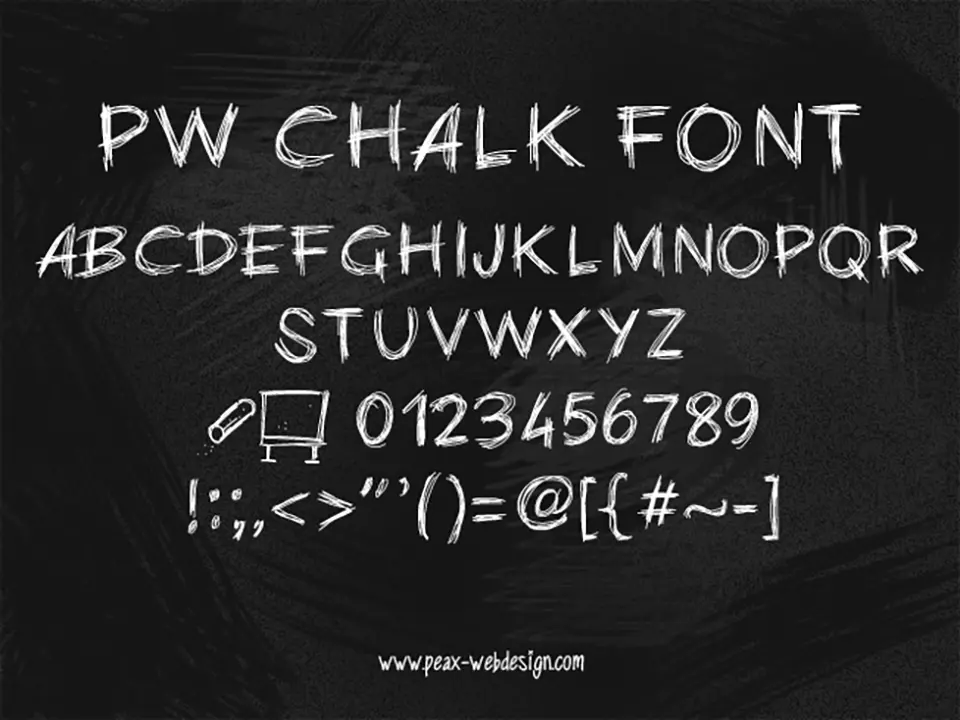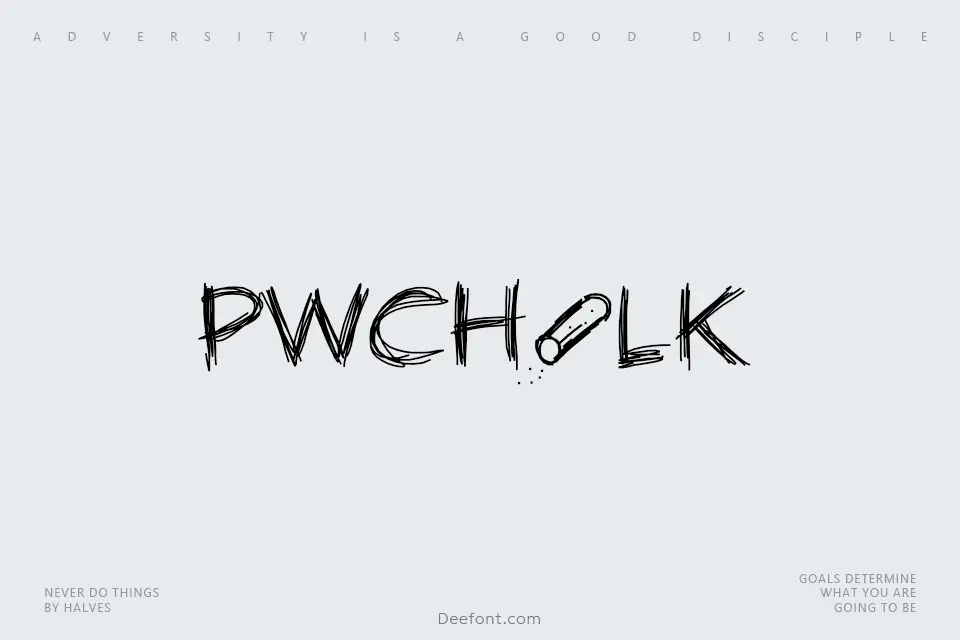
PW Chalk Font
PW Chalk Font embodies the raw, textured charm of hand-drawn chalk lettering, perfect for projects requiring an authentic classroom or café aesthetic. This free personal-use typeface features irregular strokes, subtle grit, and a sloppy yet playful handwritten style that mimics natural chalkboard writing. Its uppercase-only design includes numerals and basic punctuation, optimized for bold headlines, signage, or vintage-inspired branding. The font’s uneven baseline and scratchy details evoke nostalgia, making it ideal for children’s book covers, casual invitations, or rustic menu boards. While unrestricted for personal creativity, commercial applications require licensing. PW Chalk balances artistic imperfection with readability, offering designers a versatile tool for adding organic, tactile warmth to visual compositions.